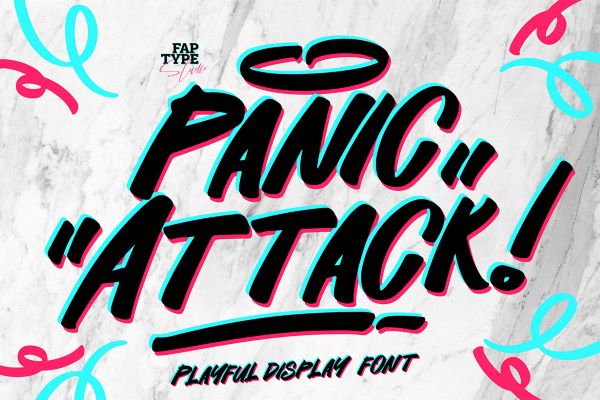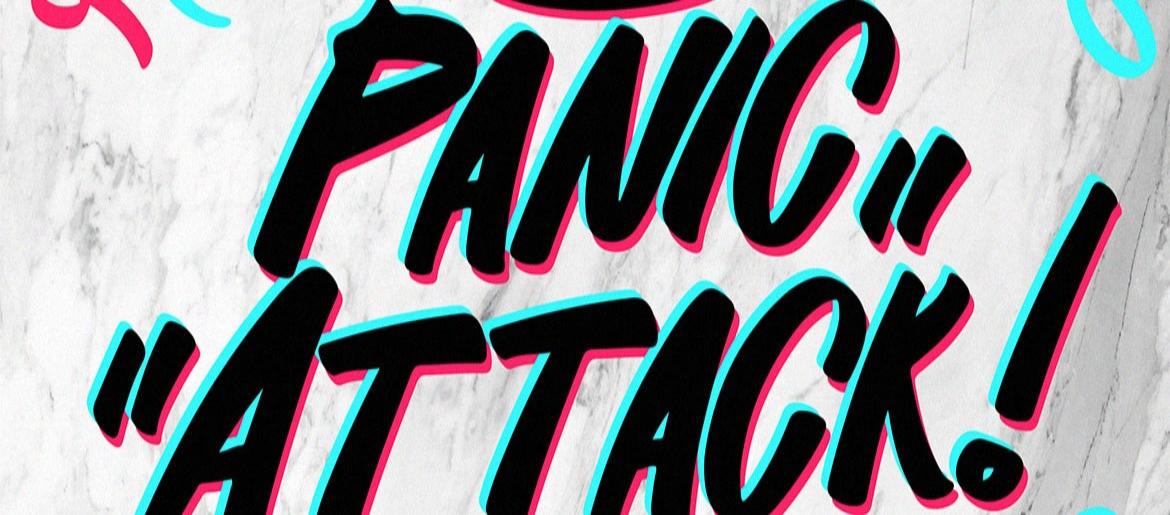
Panic Attack Font
Panic Attack by Ferry Ardana Putra is a display typeface that turns spontaneity into a design asset. Built around playful, rounded letterforms with an unmistakable comic sensibility, it offers both a Regular version and an Extruded variant for bold 3D effects — plus a set of unique swashes and over 60 alternates to keep things feeling fresh and personal. Whether you’re designing packaging that needs energy, branding that wants to feel approachable, children’s product visuals, event invitations, or social media graphics demanding immediate attention, Panic Attack arrives with enough personality to fill the room. It covers multilingual characters, PUA encoding, and full OpenType support. Free for personal use.
Panic Attack is an energetic comic display typeface in our free font collection, designed by Ferry Ardana Putra — a type designer from Mojokerto, Indonesia, known for playful and high-character display fonts released through Faptype. Browse our full library of free fonts and discover more distinctive typefaces crafted by independent designers around the world.